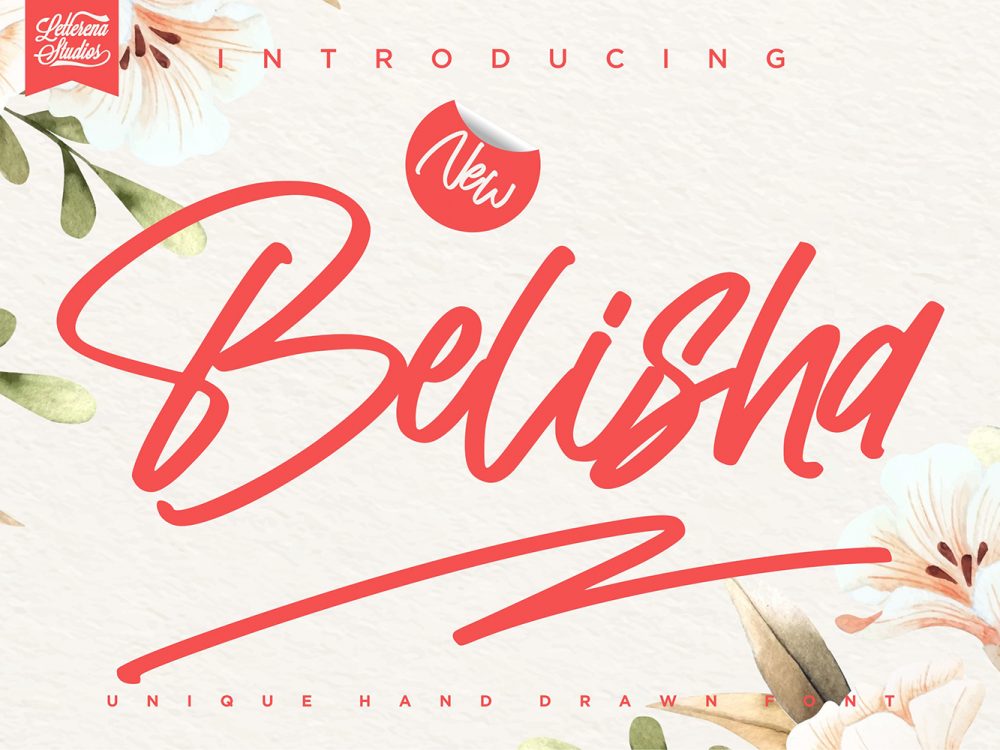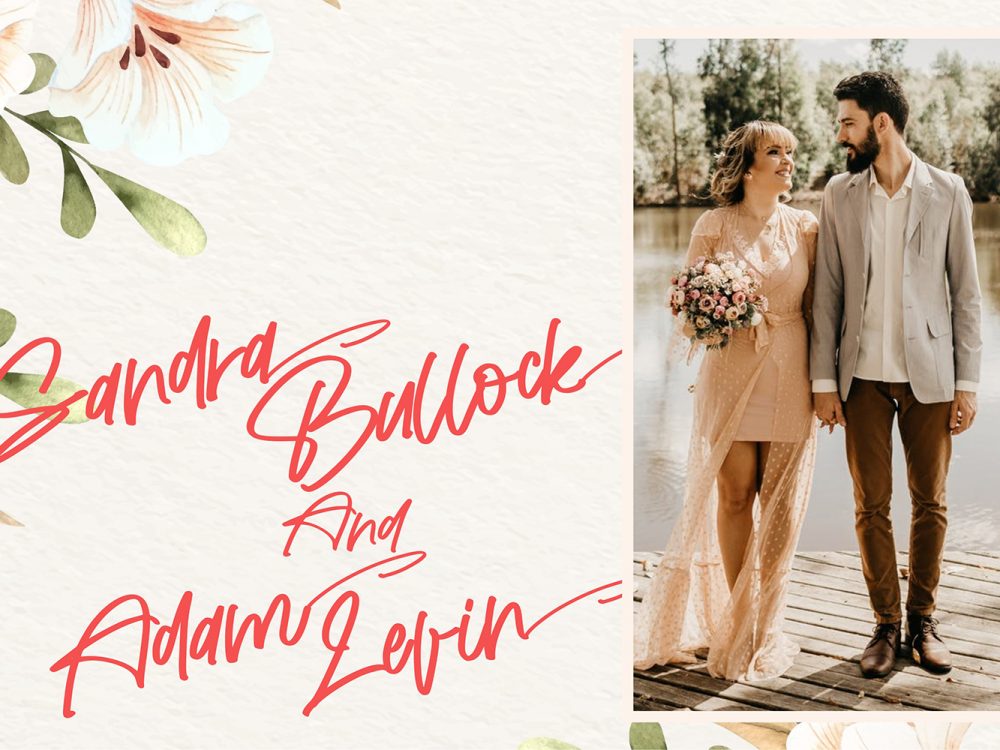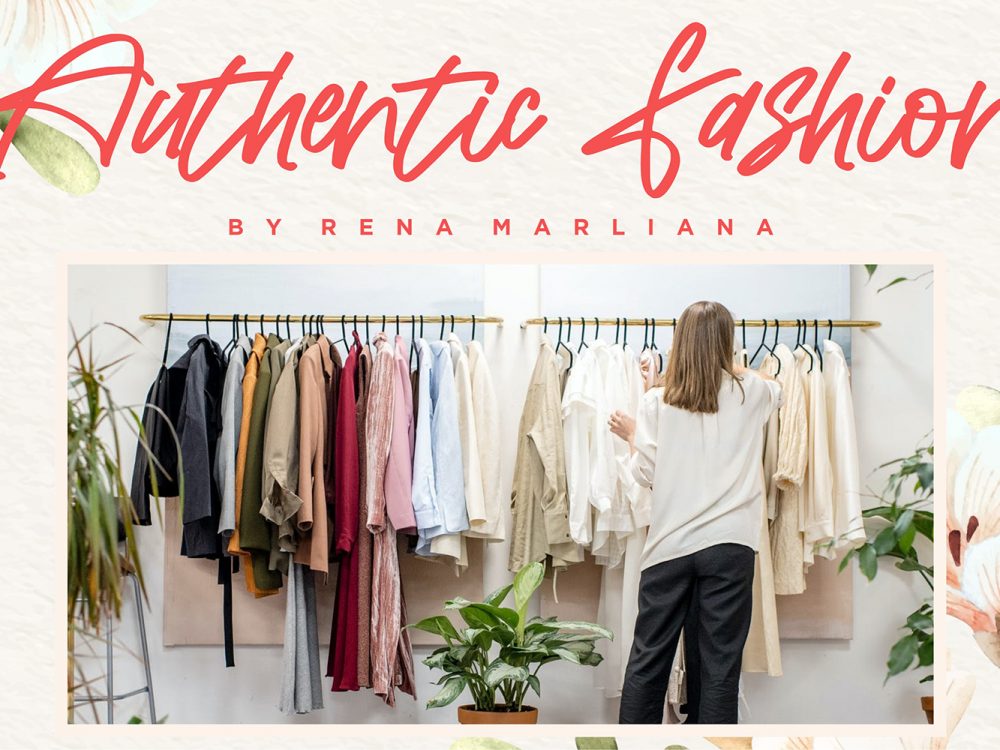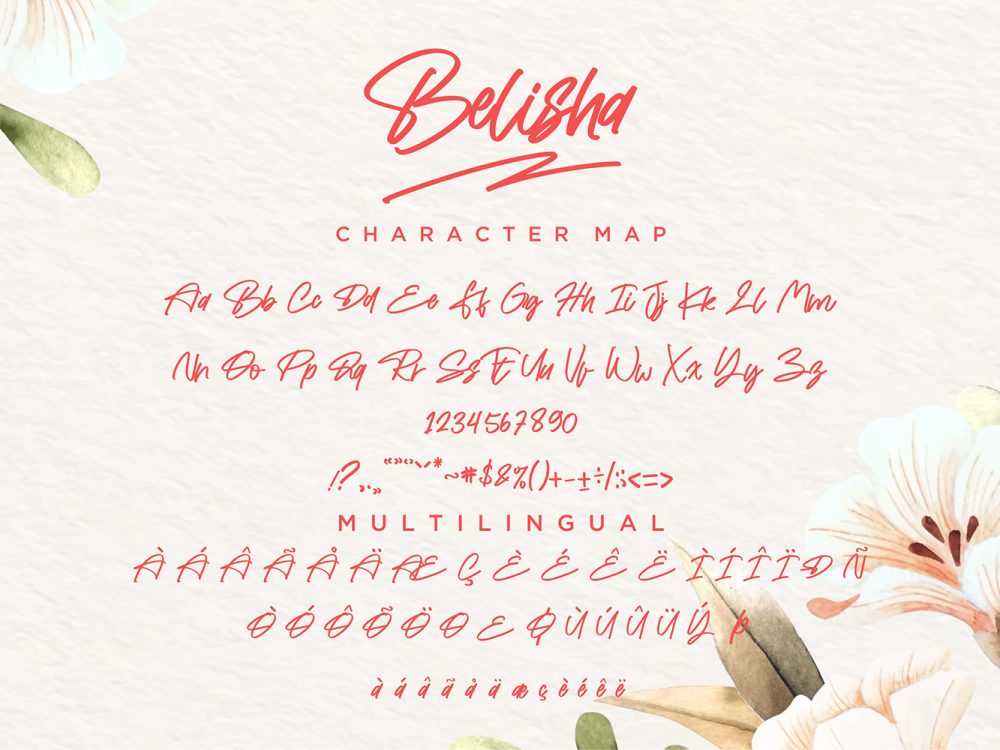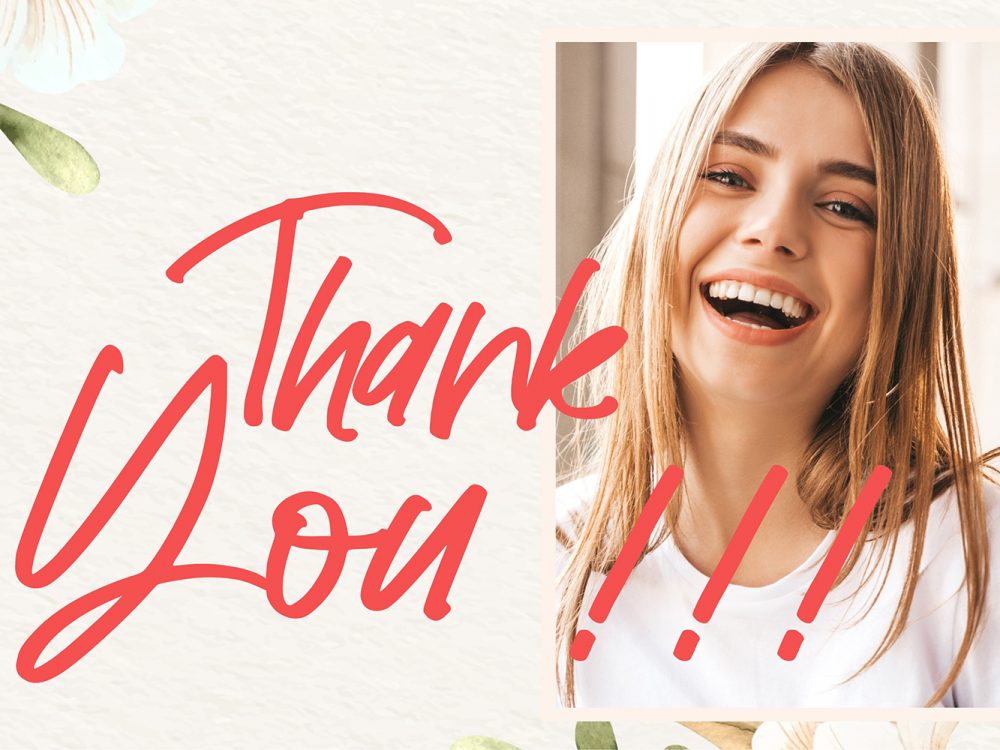
Belisha Free Font
Belisha Free Font is a scripted high quality handwritten font that simulates brush writing in an elegant style. You can use this font to create various design projects that require a modern scripting font. These can be memorable posters, wedding invitations, cards, branding, flyers, and more. Improve the quality and increase the popularity of your design projects by using this font. If you like it don’t forget to check out the full version.